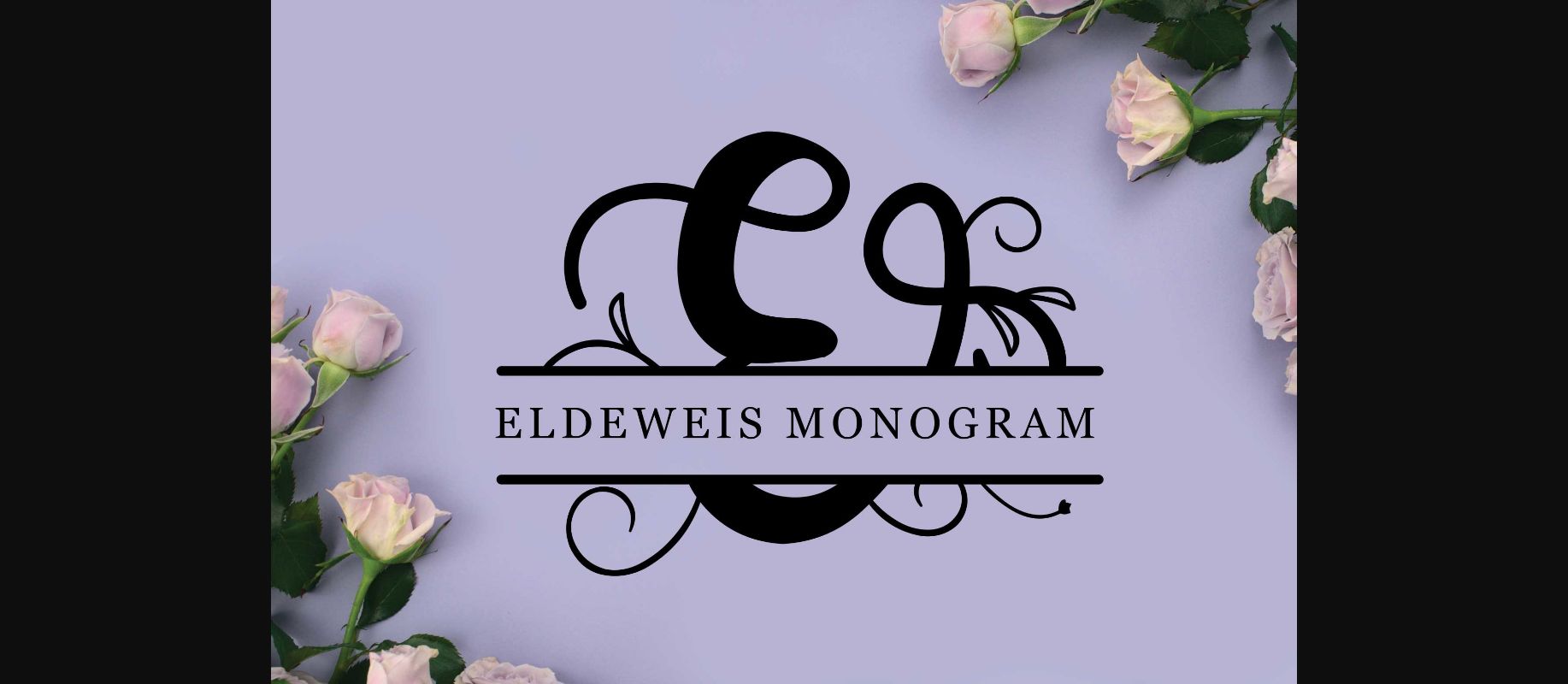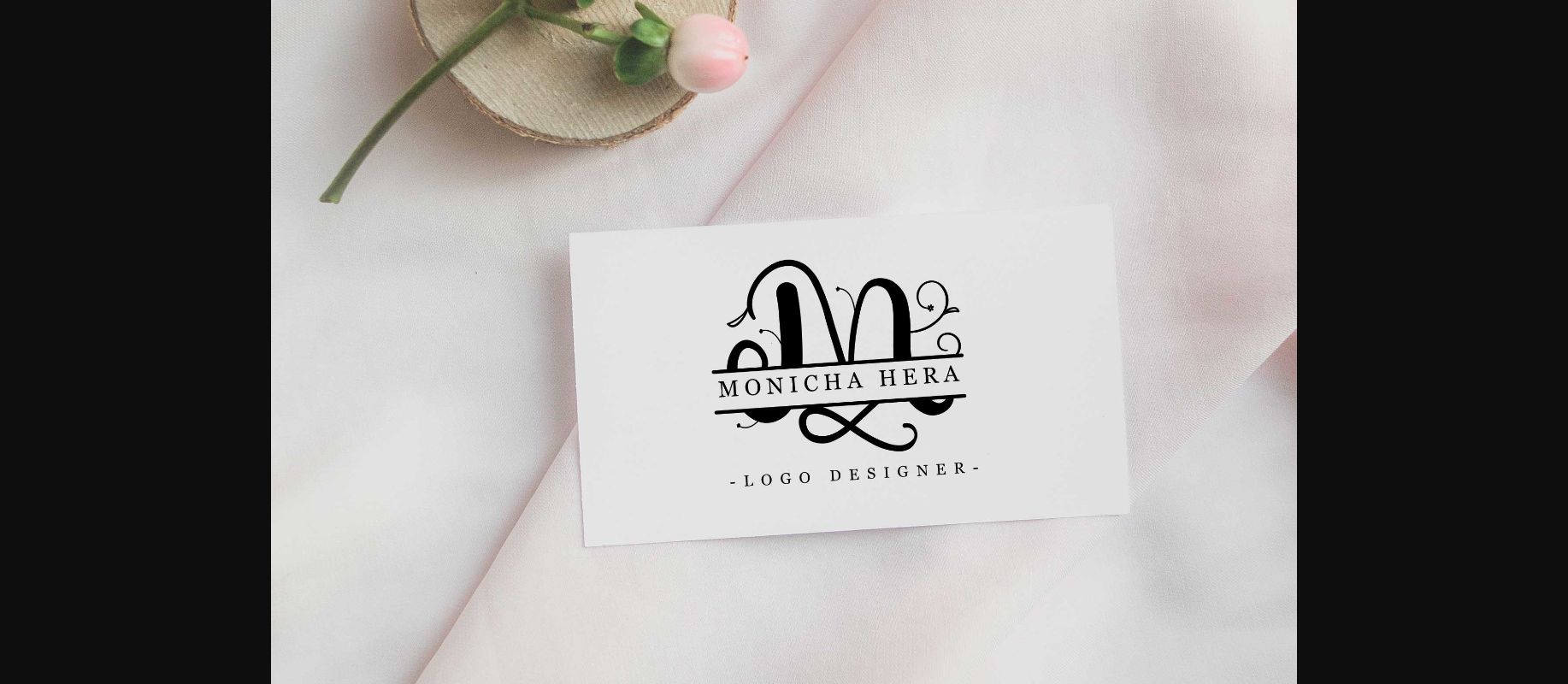
About Eldeweis Monogram Font
Eldeweis Monogram is a decorative font featuring beautiful lettering and ornamentation. Whatever the topic, it will be a great asset to your font library, and use it to create cute social media posts, crafts, logos, greeting cards or your favorite design ideas.